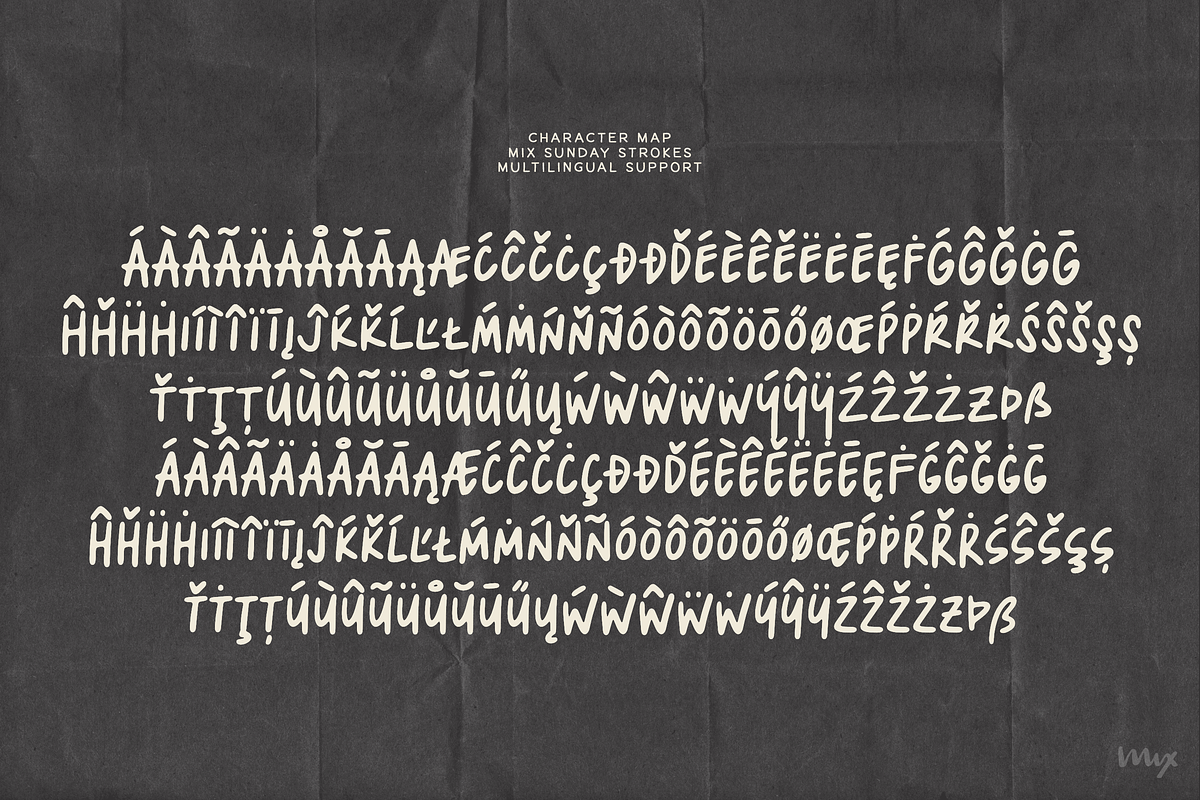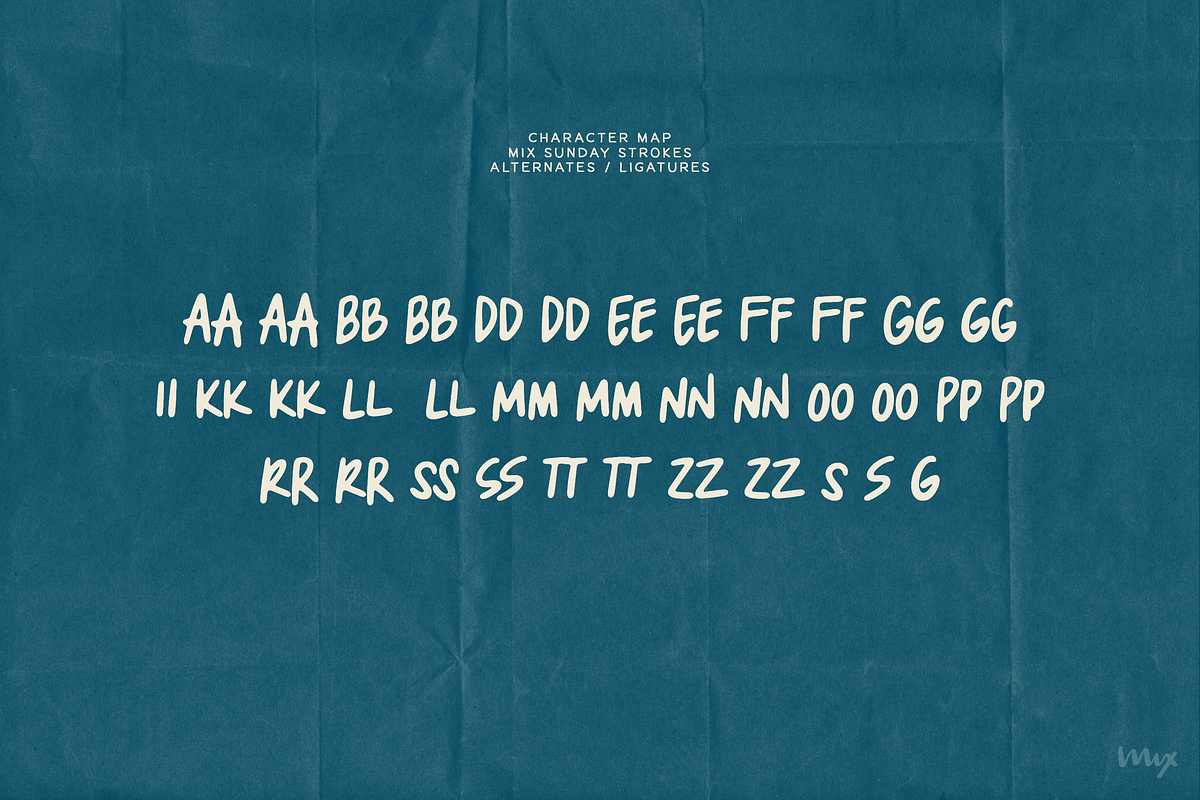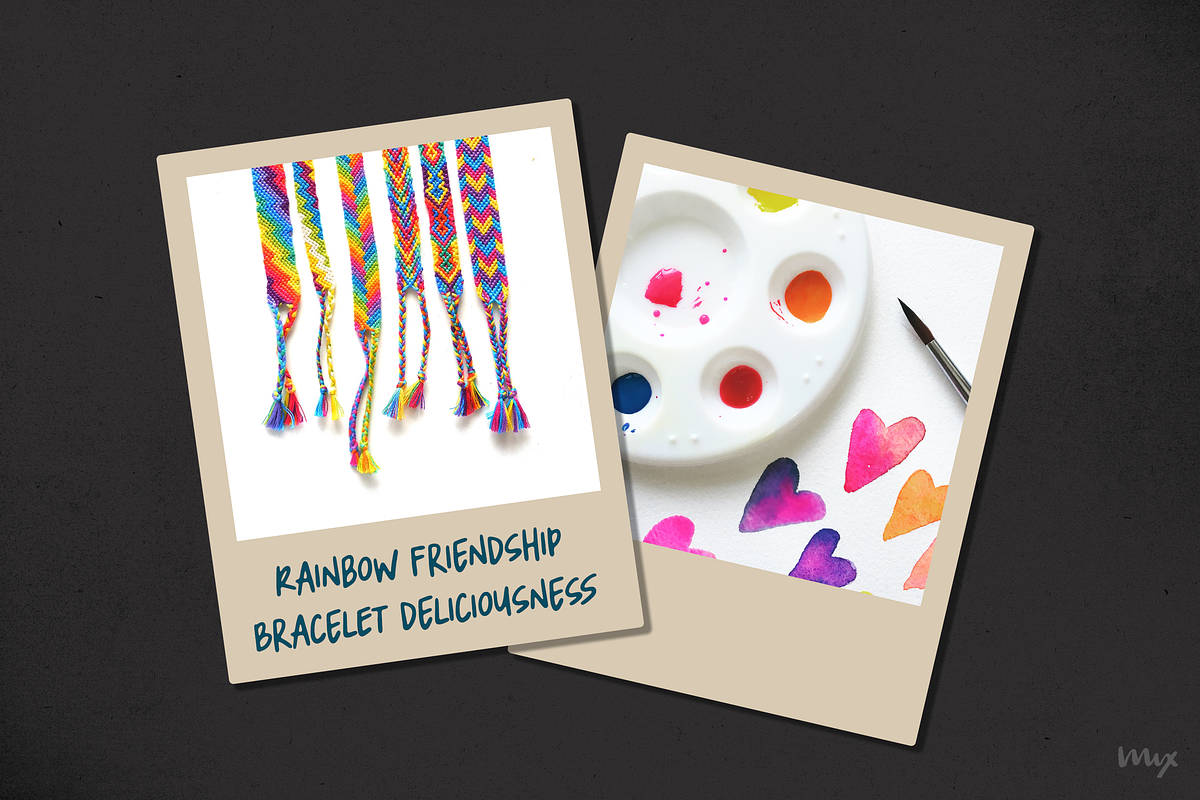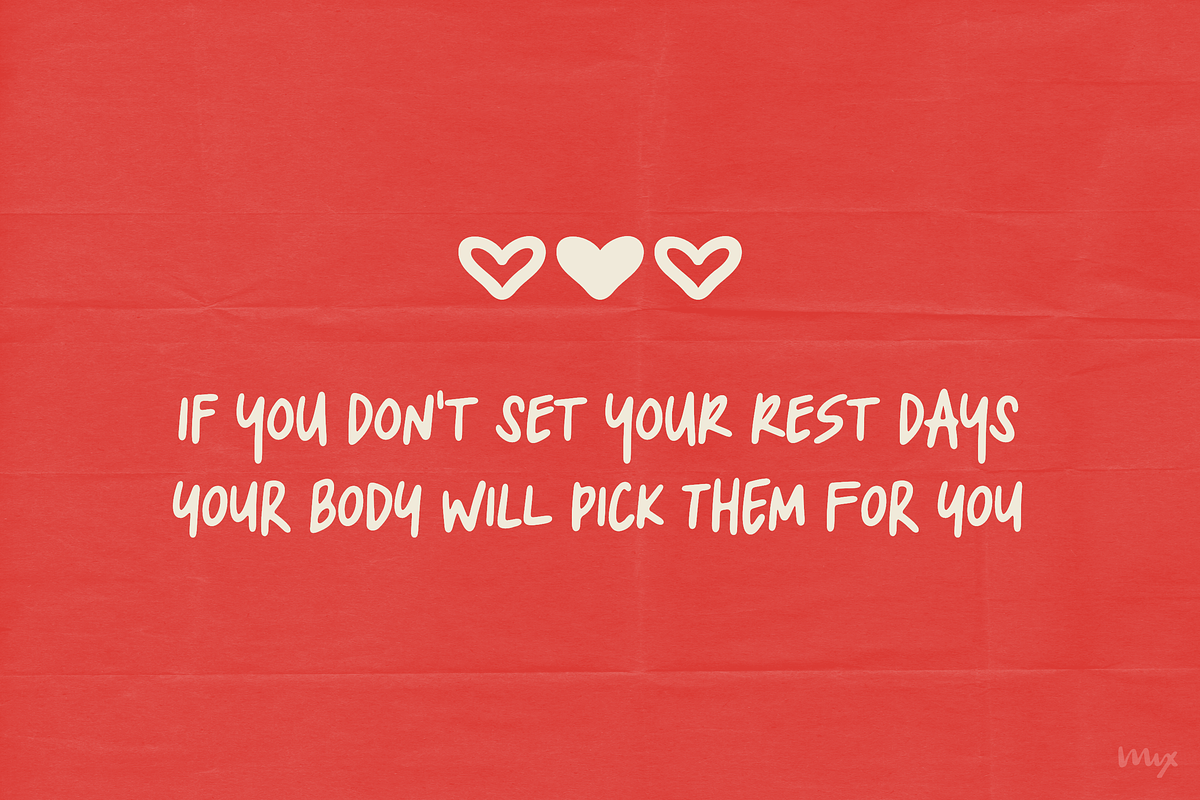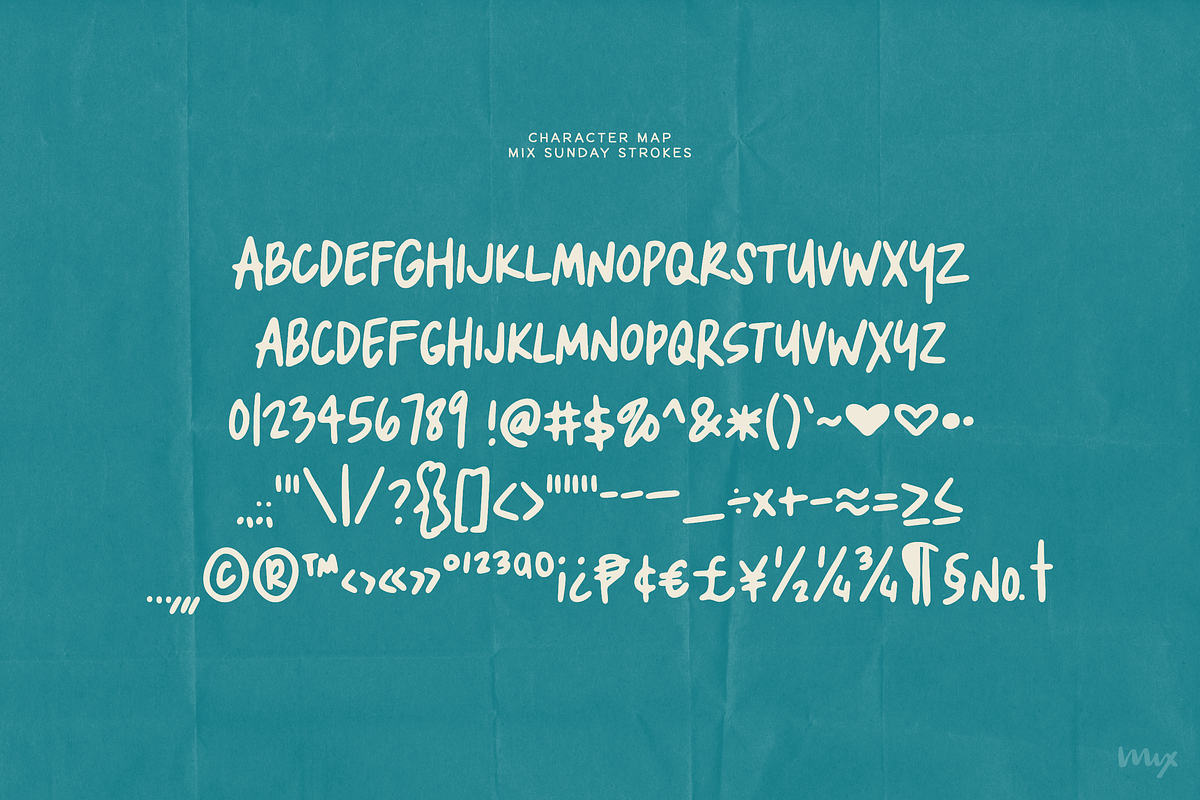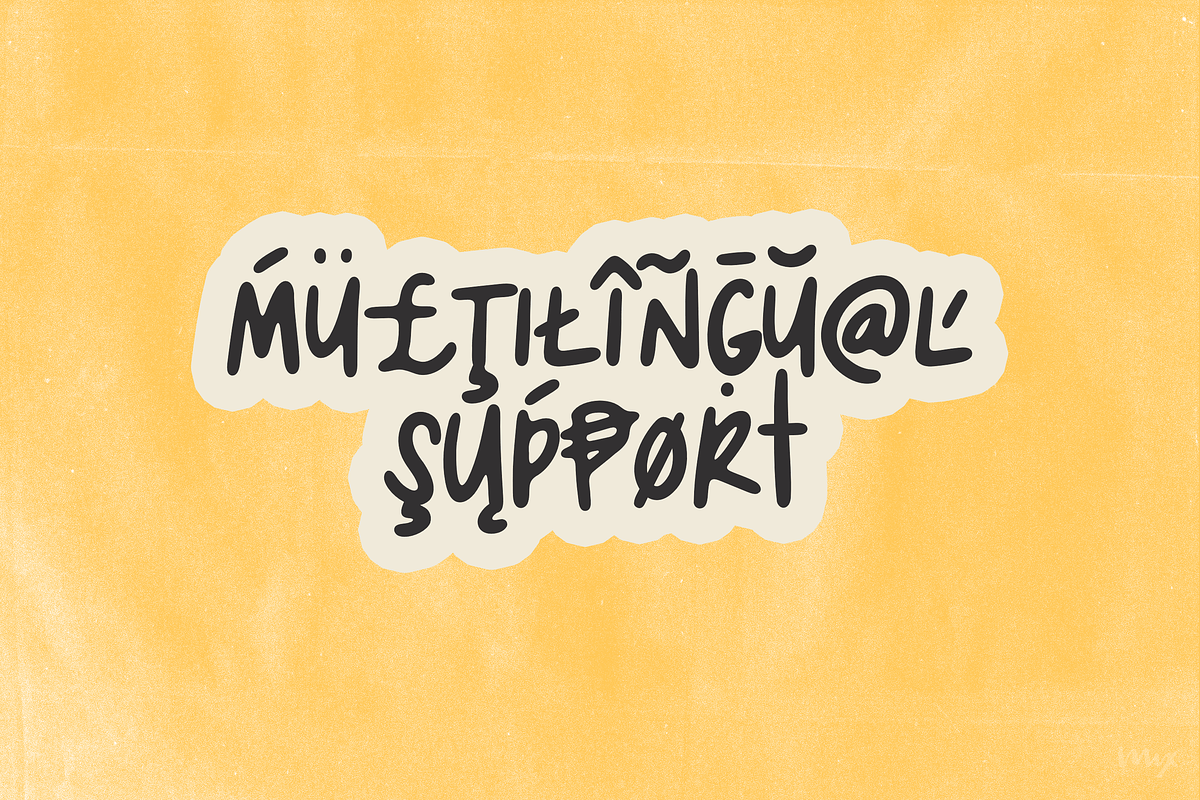
Sunday Strokes — All Uppercase Font
Meet Sunday Strokes: a meticulously crafted all-uppercase handwritten font that adds a personal touch to your projects. With extensive multilingual support, including a wide range of accented foreign characters, Sunday Strokes effortlessly adapts to various design needs.
This font captures the essence of natural handwriting, with numerous ligatures, especially for double letters, for an organic feel. Whether it's for social media posts, posters, or video captions, Sunday Strokes offers a user-friendly option for designers seeking a handwritten look.
Discover the everyday appeal of Sunday Strokes and unlock its potential for your creative projects today.
- Alternates/Ligatures: AA aa BB bb DD dd EE ee FF ff GG gg ii
- KK kk LL ll MM mm NN nn OO oo PP pp RR rr SS ss TT tt ZZ zz S s g